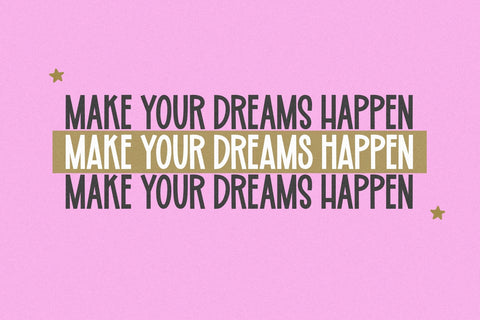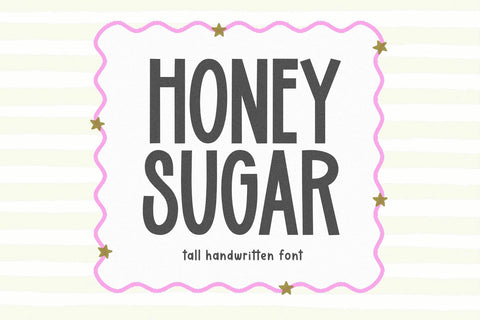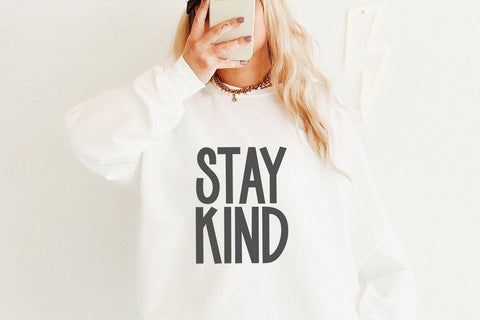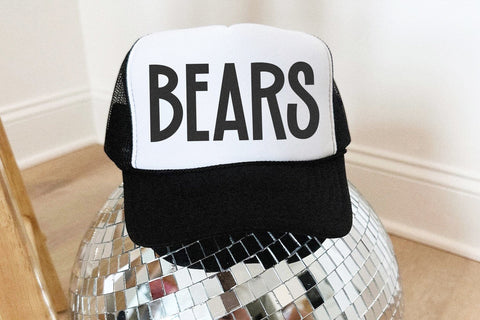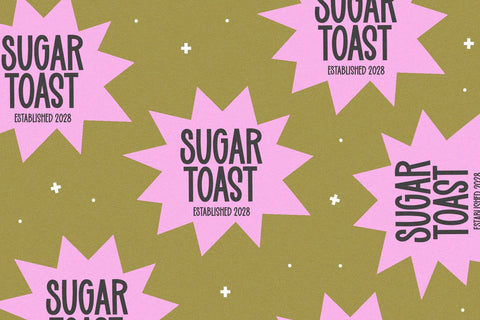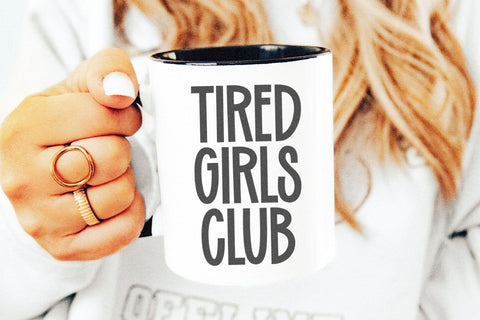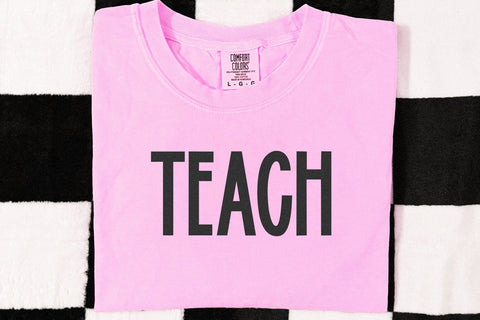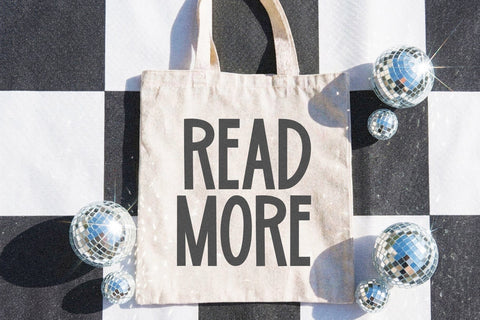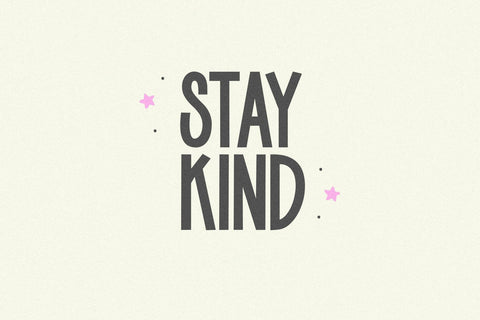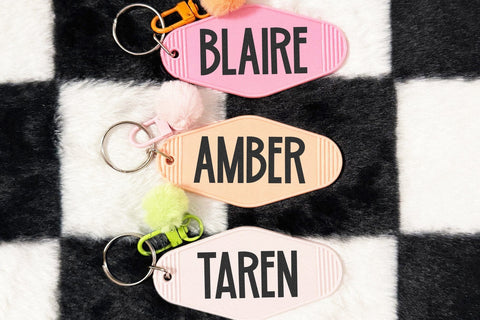
Honey Sugar - Cute Sans Font
Honey Sugar is a cute handwritten font!
This font is perfect for cricut projects, banners, logos, shirts, svg files, planners, stickers, quotes, social media and more!